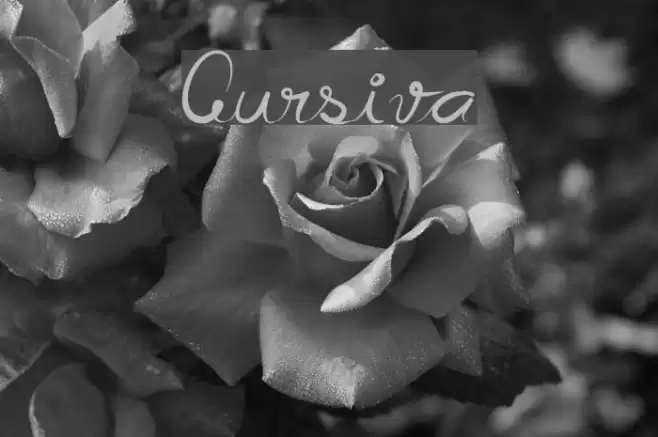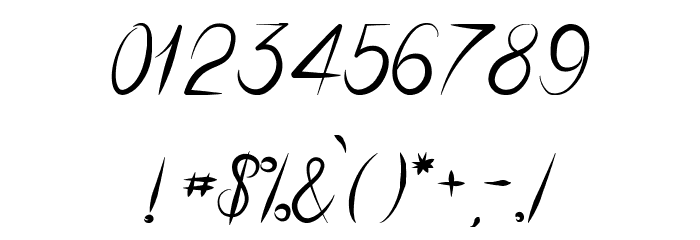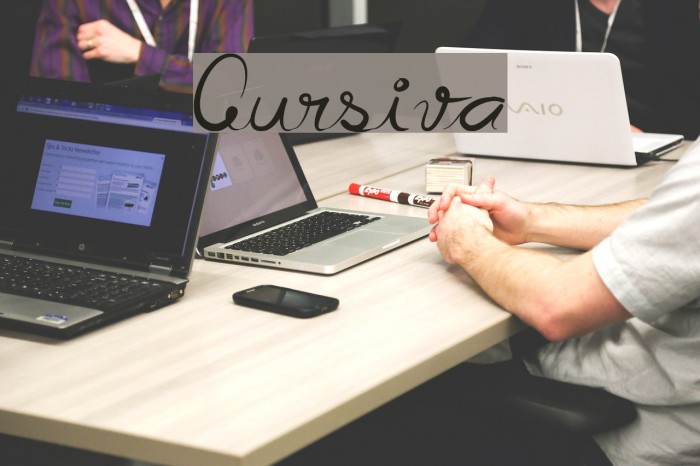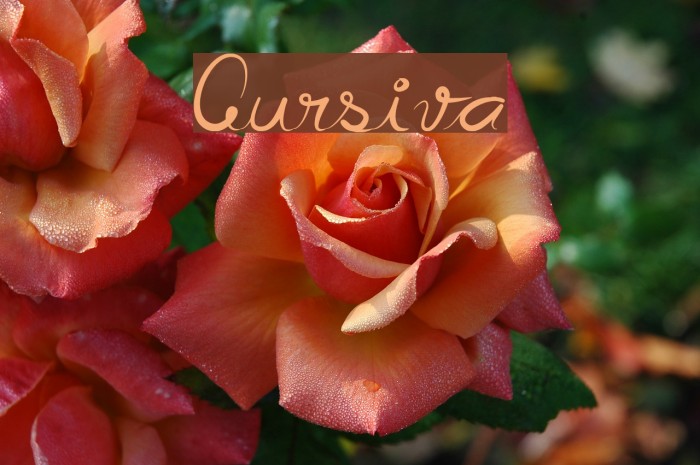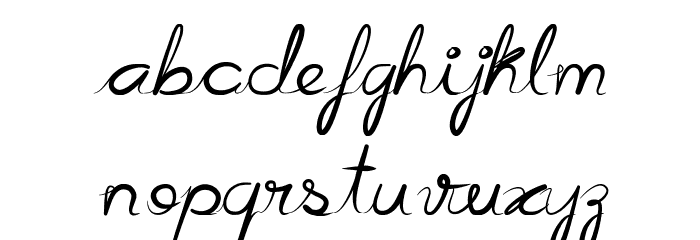
Cursiva Font
Cursiva Description
This elegant script font features a flowing, cursive style with smooth, connected strokes that mimic natural handwriting. The uppercase letters are characterized by their tall, sweeping ascenders and descenders, giving them a graceful and sophisticated appearance. The lowercase letters maintain a consistent slant, enhancing the fluidity and continuity of the text. Numbers and special characters are designed with the same attention to detail, ensuring a cohesive look across all elements. The font's overall aesthetic is both classic and refined, making it suitable for a variety of formal and decorative applications.
An elegant script font with flowing, connected strokes and a sophisticated appearance from Uncategorized fonts.
- Proposed Projects: Ideal for wedding invitations, elegant branding, greeting cards, and formal event programs.
- Overall Style: Classic
- Use Case: Logos, Invitations, Decorative text